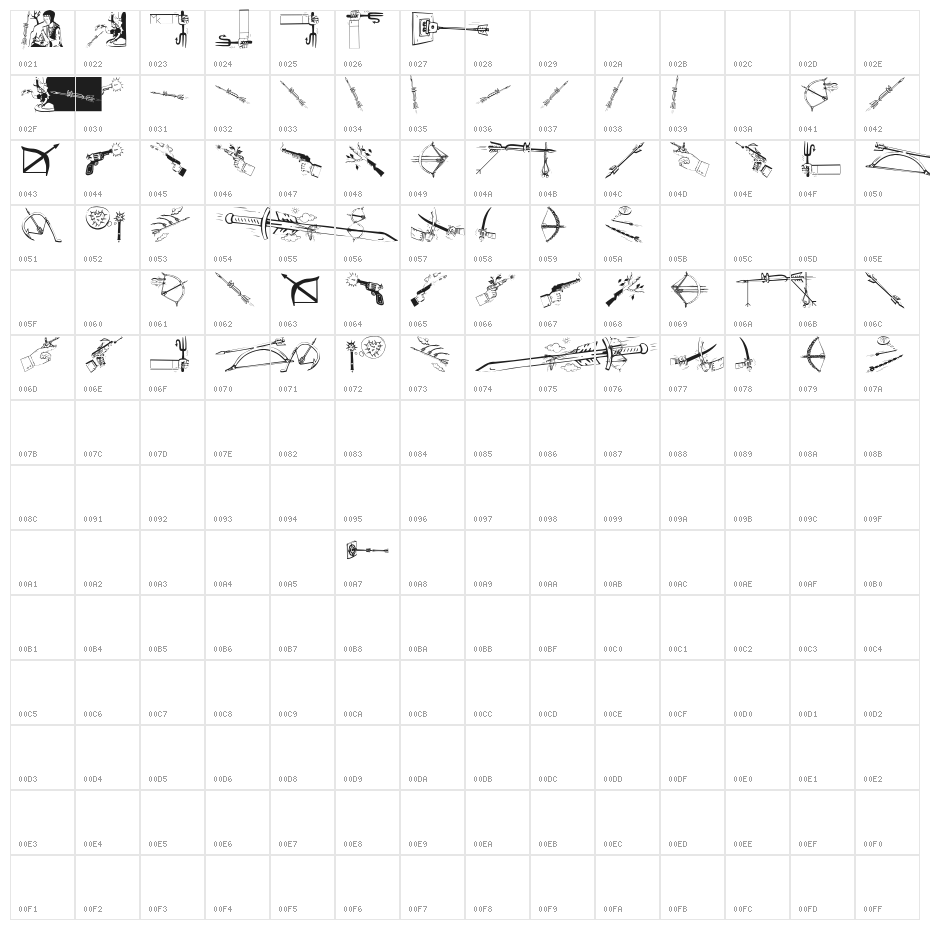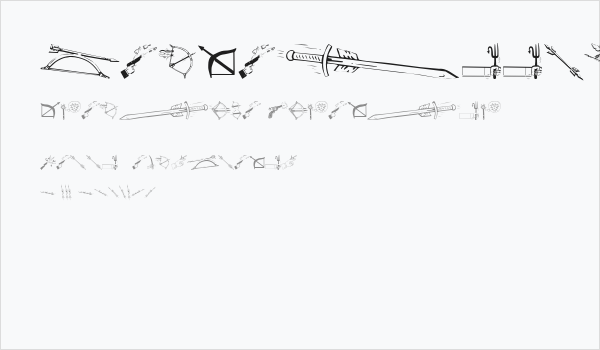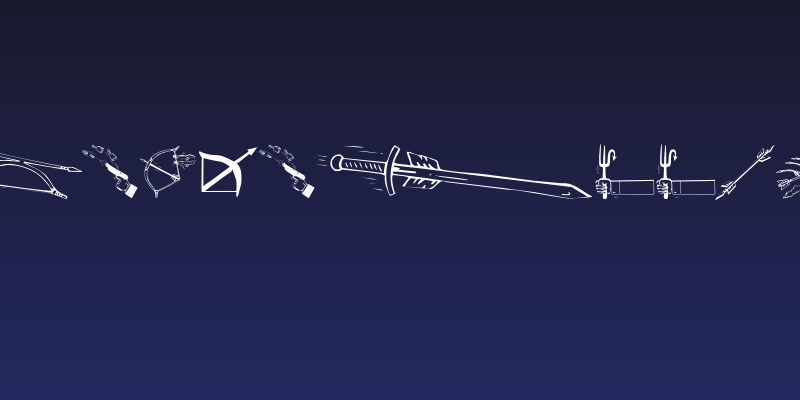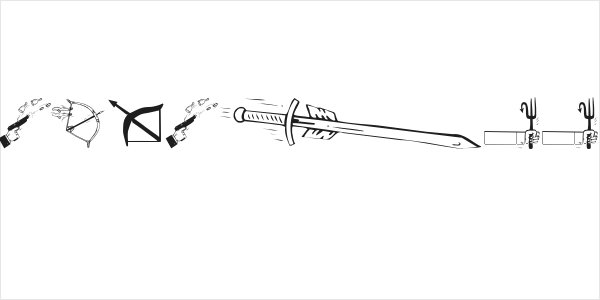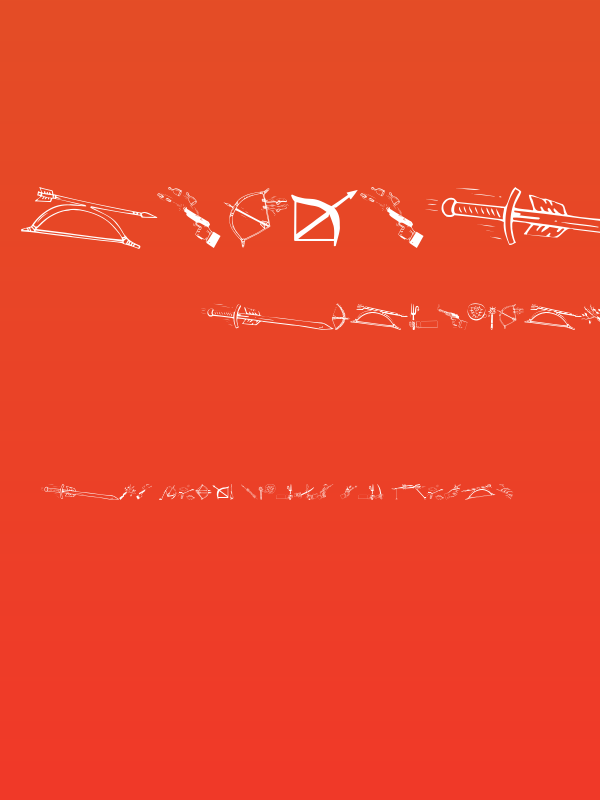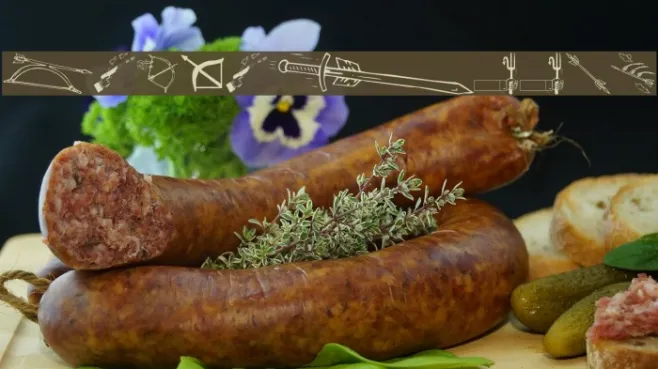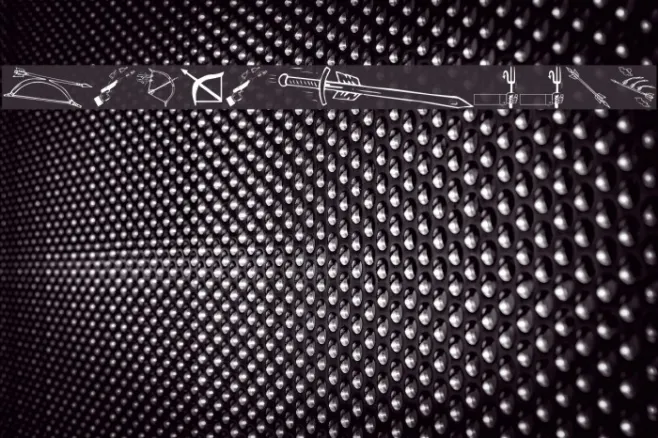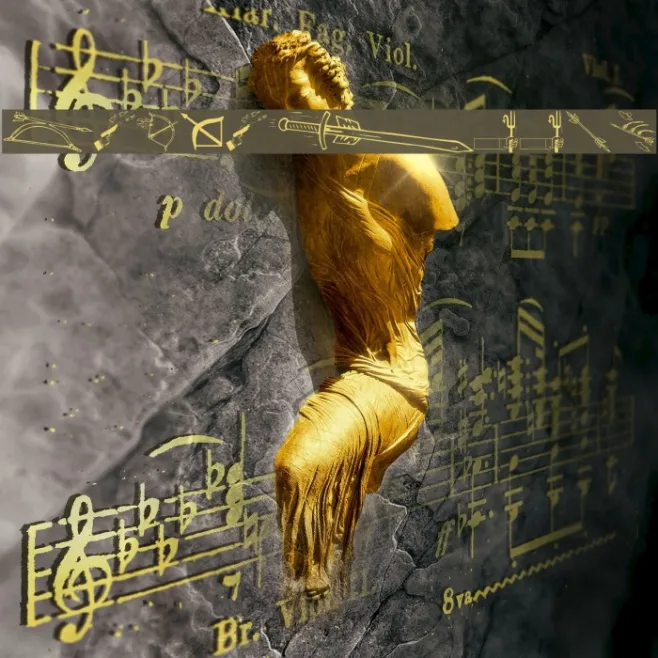
PeaceTools Font
PeaceTools Description
This font is a unique collection of illustrative characters that combine elements of peace and weaponry. Each character is a detailed drawing that creatively merges symbols of conflict with those of harmony, such as guns with flowers or swords with olive branches. The style is highly decorative and artistic, making it more of an illustrative set rather than a traditional typeface. The characters are intricately designed, with a focus on conveying a message through visual storytelling. The font is not suitable for body text but serves as a powerful visual tool for conveying themes of peace and conflict.
| Use Case | Logos, Illustrations, Posters |
| Proposed Projects | Ideal for posters, protest art, editorial illustrations, and thematic design projects focused on peace and conflict. |